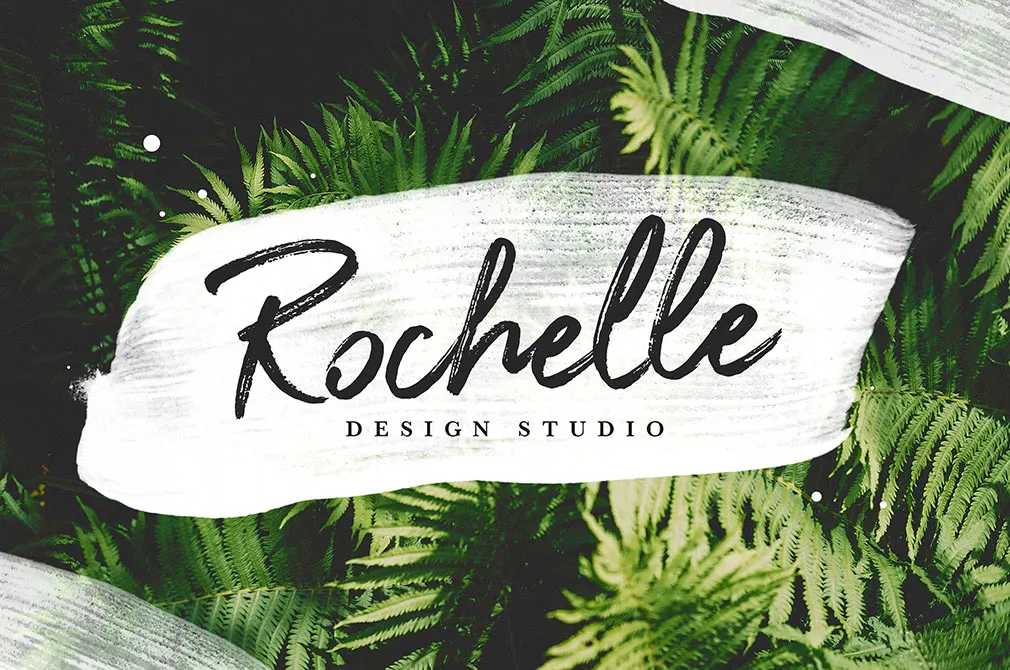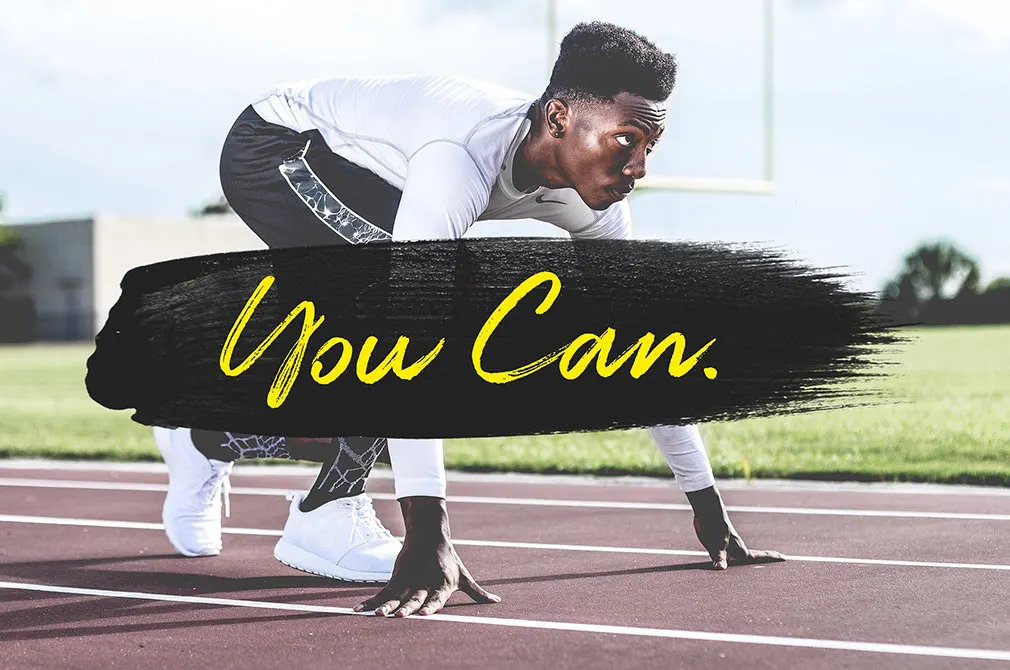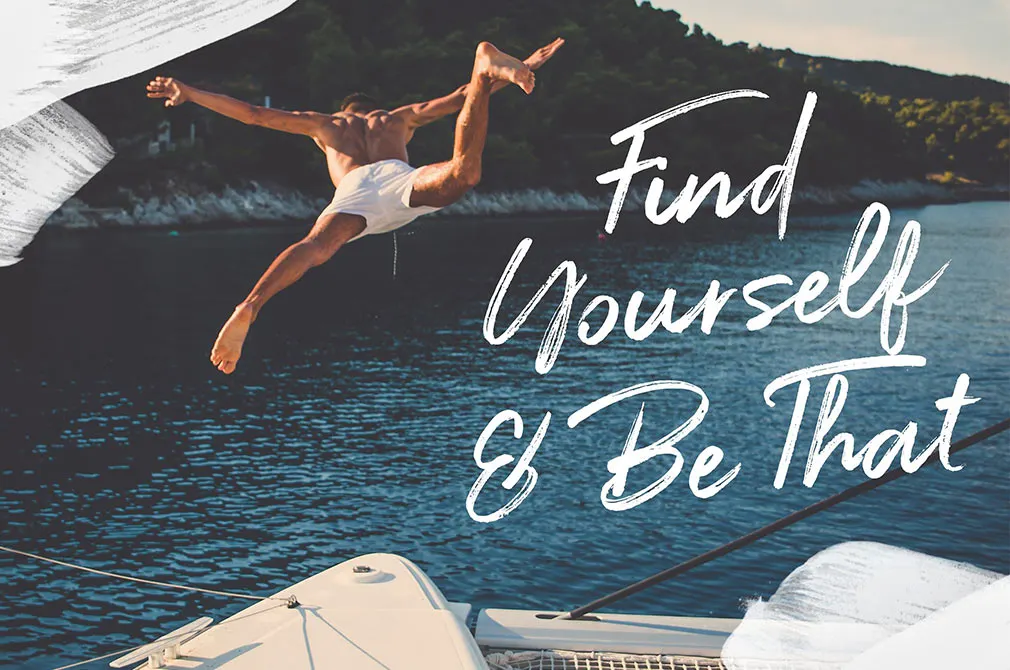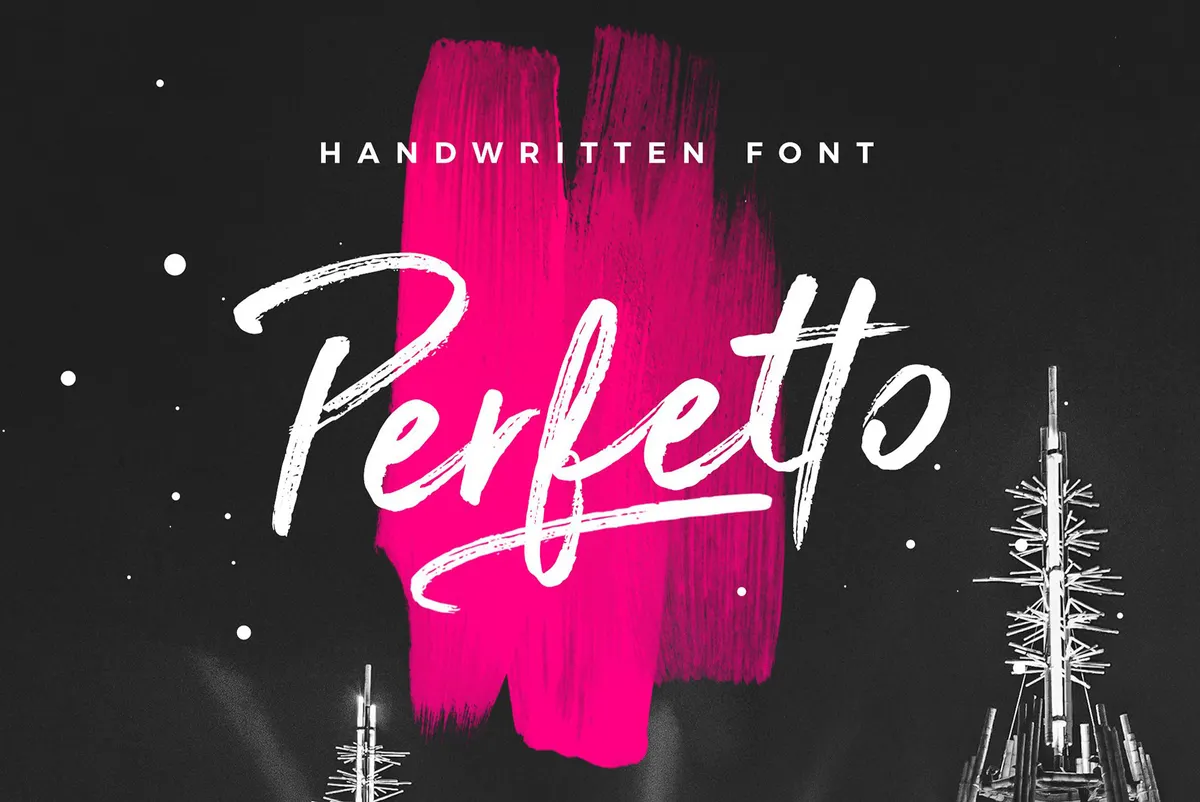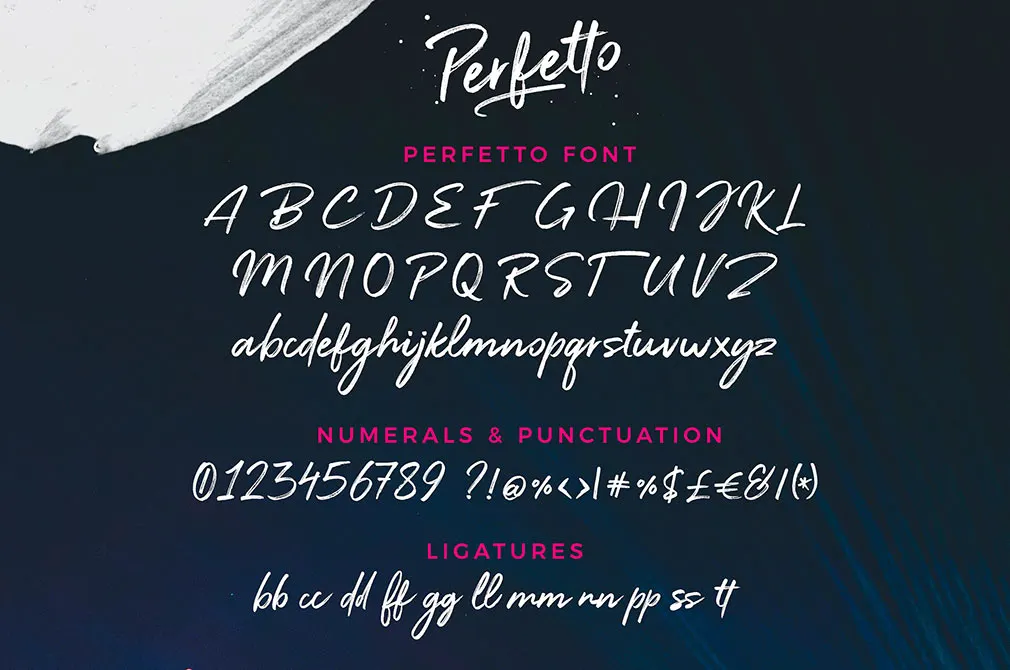
Perfetto Brush Font
Do you want some flavor of Bella Italia? We have the best of it in Perfetto brush typeface! Dry stroked and hot-tempered, it must the best compliment to your designs, starving for passion and fire.
Perfetto supports all European languages and comes with punctuation, numerals, uppercase and lowercase symbols (with some nice ligatures along). What to have it for? Have it for all sorts of printables, clothing or just bring an energetic twist to ordinary things that should matter menus, store designs, websites, etc. And remember, there are never too many brush fonts in a collection, you just should have one for any case, purpose or mood. Elementare!